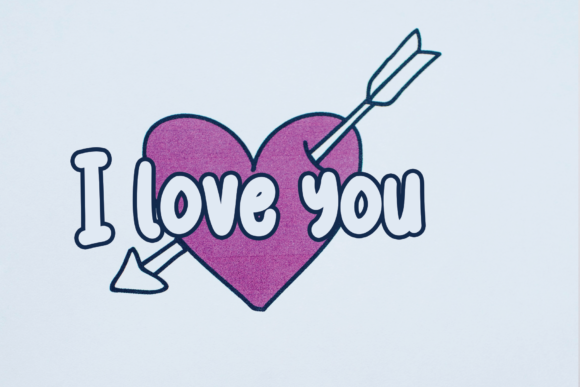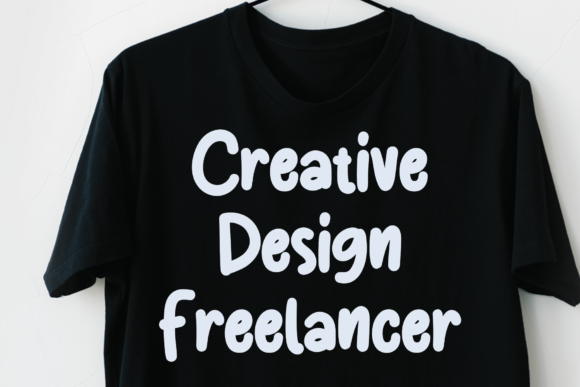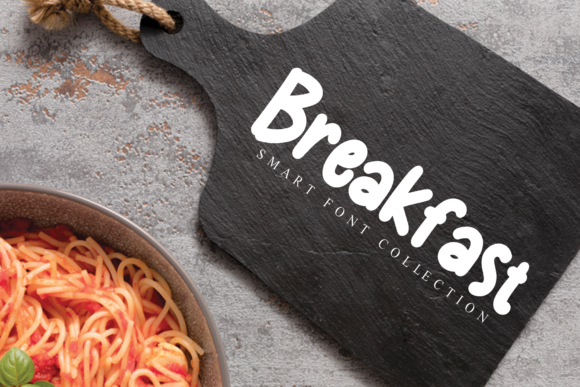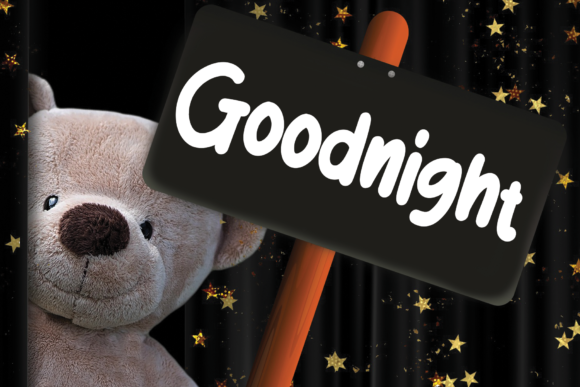
Handmade is a relaxed, adaptable and friendly handwritten font. This original look will appeal to a wide range of crafty ideas, from letterheads and titles, to stationery.